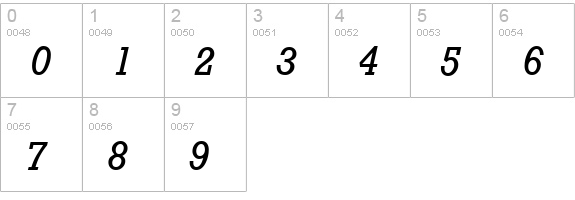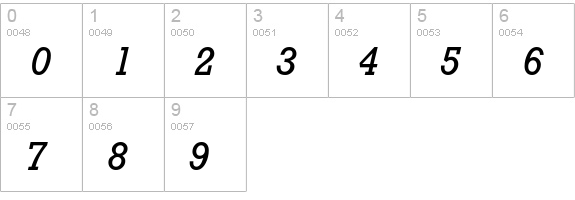
Rambault-Italic Font Details
Rambault-Italic is a distinctive, italic variant in the Rambault typeface family \xE2\x80\x94 well suited to design and typography projects.
Rambault-Italic font exudes elegance and sophistication with its sleek and stylish letterforms. The italicized design adds a touch of flair and sophistication to any text, making it perfect for projects that require a touch of class. What sets Rambault-Italic apart is not just its aesthetic appeal, but also its versatility. Whether you're creating elegant invitations, eye-catching advertisements, or stylish branding materials, this font is sure to make a statement. Best of all, Rambault-Italic is available for free download at FontsMarket.com. So, whether you're a design professional looking for a new go-to font or a hobbyist looking to add a touch of elegance to your projects, Rambault-Italic is the perfect choice. Download it today and elevate your designs with this stunning typeface.